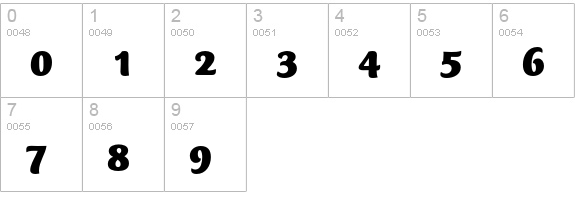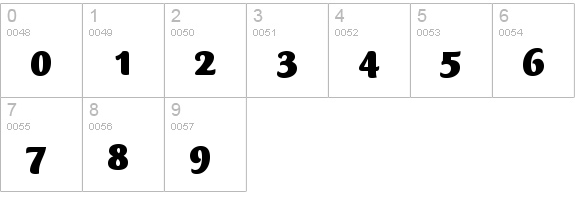
Club Type Mercurius Black is a maximum-weight, dramatic variant in the Club typeface family \xE2\x80\x94 well suited to maximum-impact headlines, posters, and packaging.
Club Type Mercurius Black font is a sophisticated and elegant typeface that exudes luxury and style. With its sleek and modern design, this font is perfect for creating eye-catching headings, titles, and branding materials. The sharp lines and unique curves of Club Type Mercurius Black font make it stand out from the crowd, adding a touch of sophistication to any design project. What makes Club Type Mercurius Black font even more appealing is that it is available for free download at FontsMarket.com. This means that you can easily access this high-quality font without any cost, making it a valuable addition to your font collection. Whether you are working on a professional project or a personal design, Club Type Mercurius Black font is sure to elevate your work and leave a lasting impression on your audience. Download it today and enhance your designs with this exceptional typeface.